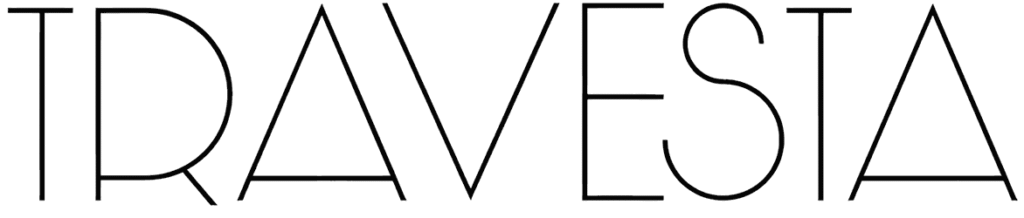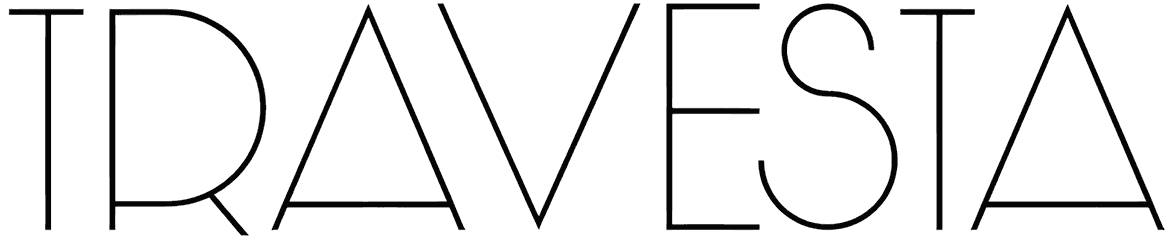
Travesta Font
Travesta is a basic thin font that is very thin in appearance. It is a font that is designed to be eye-catching and attention-grabbing, and it has the potential to stand out in a variety of design projects, like headers, magazine contexts, and more.
Despite the fact that it lacks lowercase letters, its potential to be effective in conveying a professional air cannot be ignored. If you are interested in downloading this font from RB, it is available now.